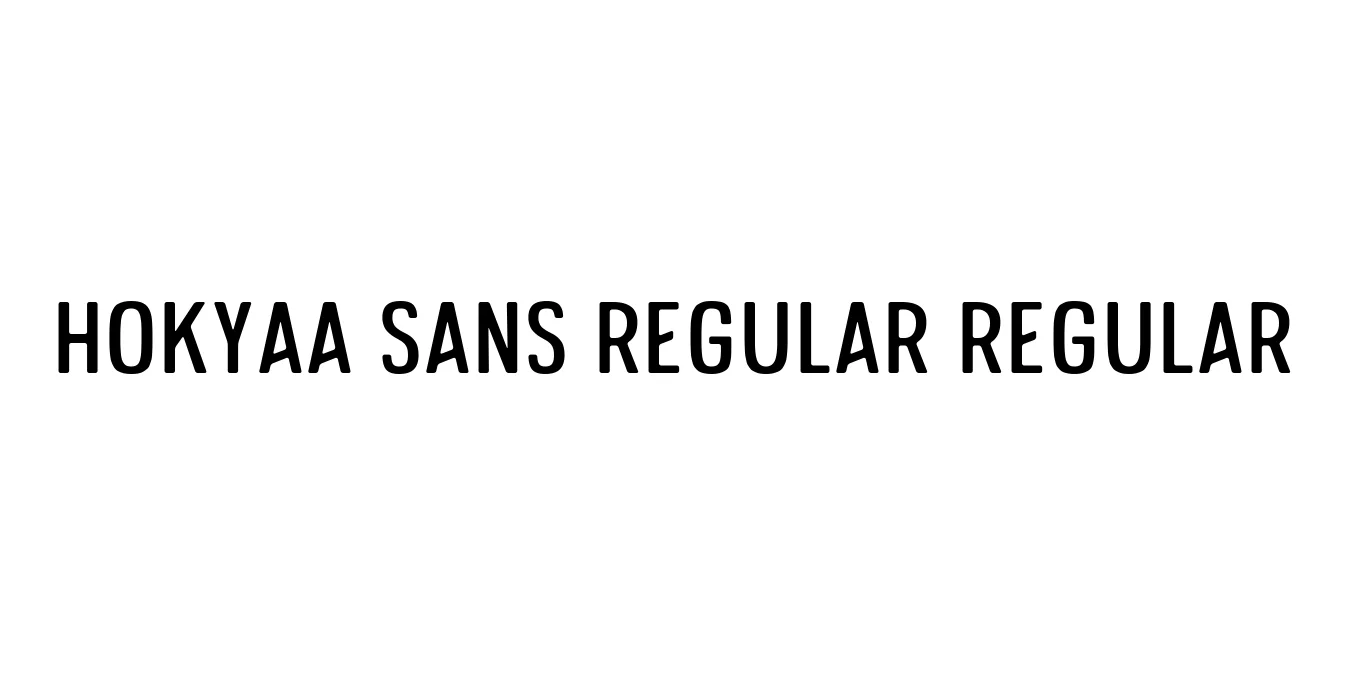
Hokyaa Sans Regular Regular
Designed by Muin Creative
Hokyaa Sans Regular is a modern geometric sans-serif typeface crafted to provide a clean and balanced visual experience. Its design philosophy centers on clarity and neutrality, making it an excellent choice for designers who require a font that communicates professionalism without being overly rigid. The font features consistent stroke widths and open apertures, which contribute to its high legibility in both large headings and smaller body text.
Throughout its development, the focus was on creating a versatile typeface that excels in digital environments. Hokyaa Sans reflects contemporary design trends by stripping away unnecessary ornaments, resulting in a minimalist aesthetic that integrates seamlessly into mobile applications, websites, and high-end editorial layouts. Its timeless geometric structure ensures it remains a staple for branding and corporate communications.
Hokyaa Sans Regular Best Uses
Highly legible on mobile and desktop screens for buttons and menus.
Creates a professional and modern look for logos and business cards.
Clean character shapes make it ideal for long-form reading on websites.
Effective for eye-catching social media graphics and banners.